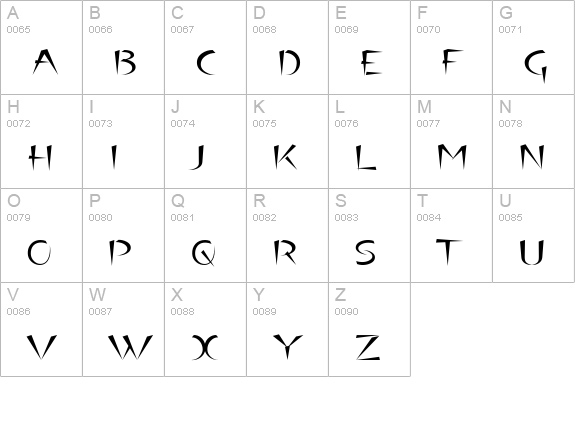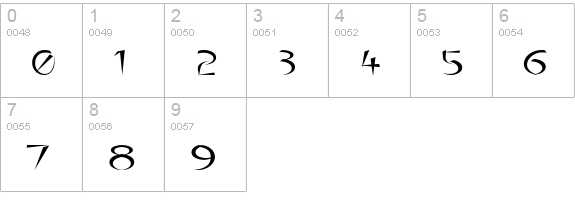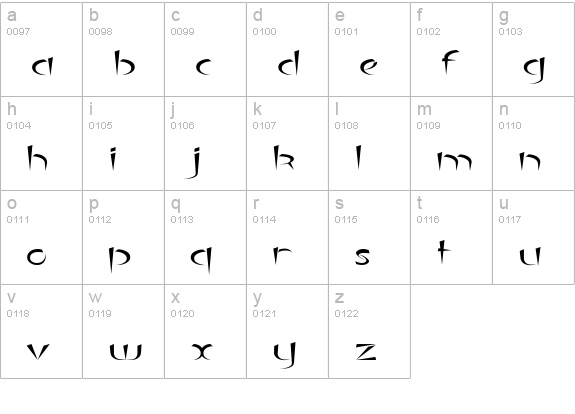
Luteous Exodus Font Details
Luteous Exodus is a beautifully crafted font that exudes elegance and sophistication. Its sleek lines and modern design make it perfect for a wide range of projects, from branding to editorial design. The unique blend of classic and contemporary elements gives this font a timeless appeal that will make your work stand out. One of the best things about Luteous Exodus is that it is completely free to download. You can get your hands on this stunning font at FontsMarket.com, where you can access a wide selection of high-quality fonts for all your design needs. Don't miss out on the opportunity to enhance your projects with the stylish and versatile Luteous Exodus font. Download it today and take your designs to the next level!